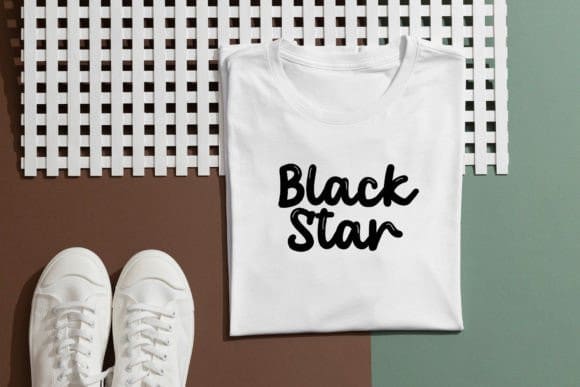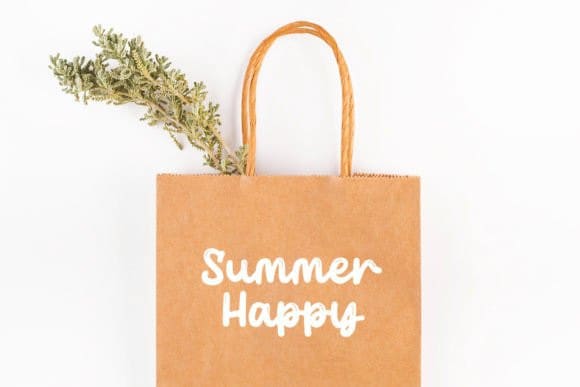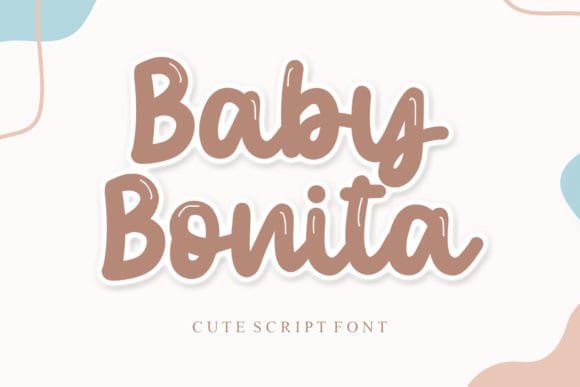
Baby Bonita Font
Baby Bonita Font is a playful and cute handwritten font. Whether you’re using it for crafts, digital design, presentations, or making greeting cards, this font has the potential to become your favorite go-to font, no matter the occasion!